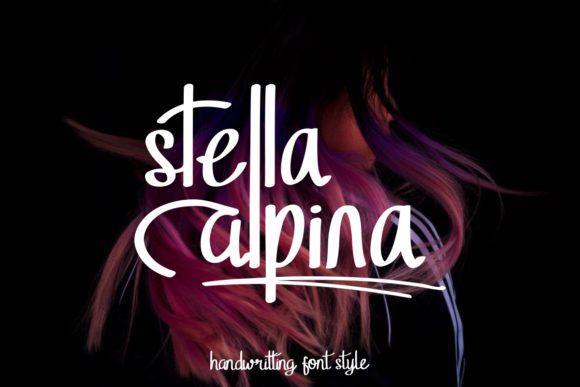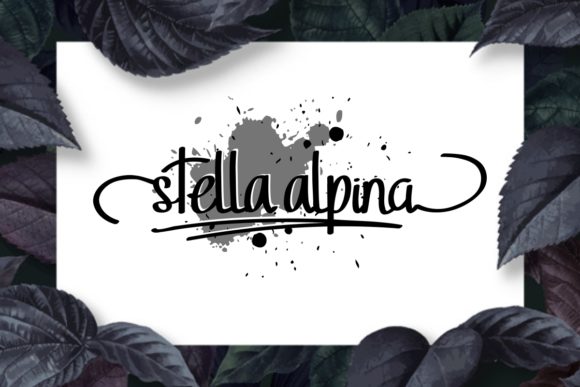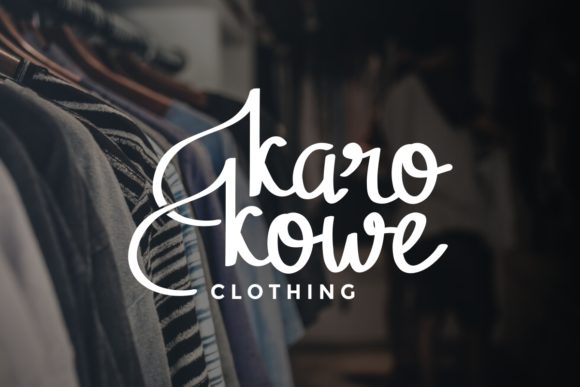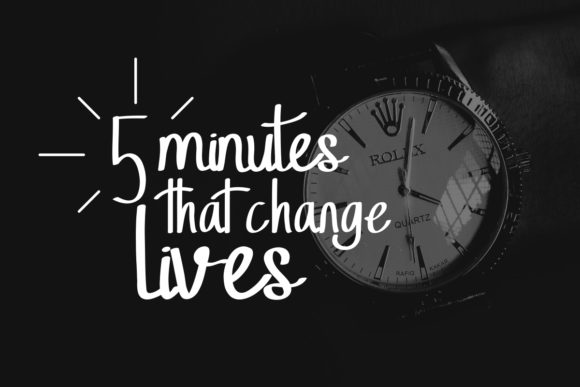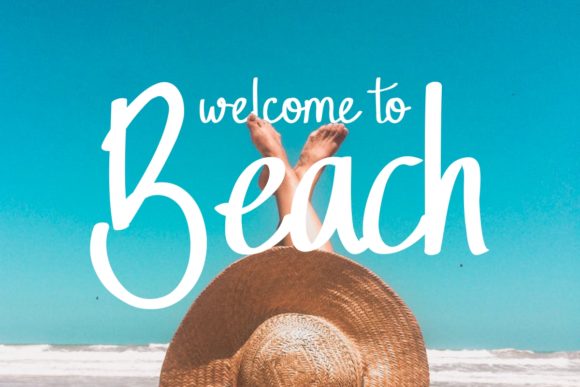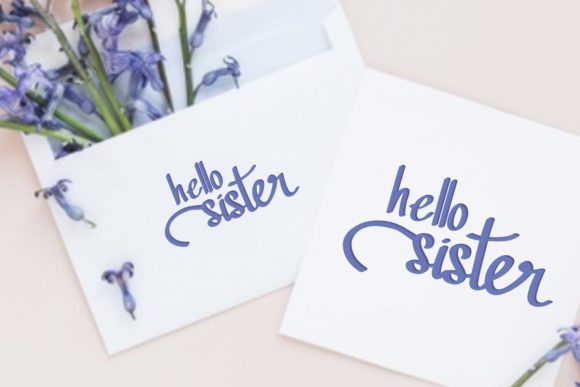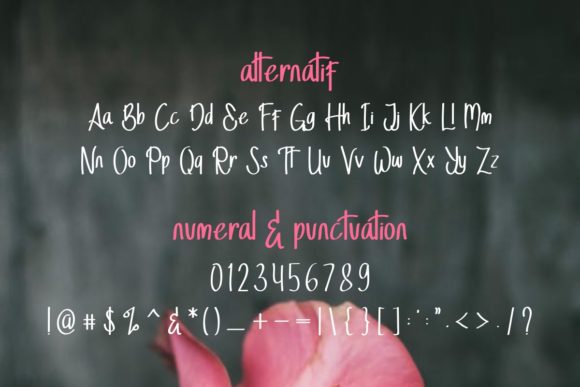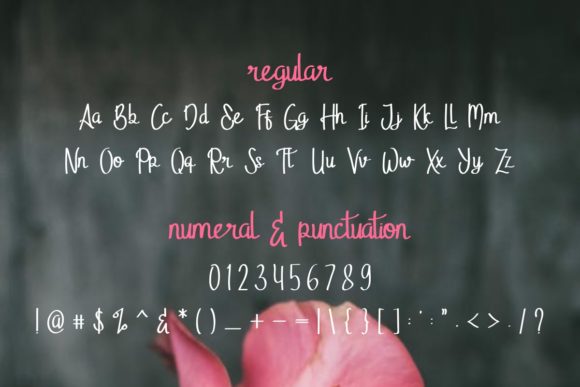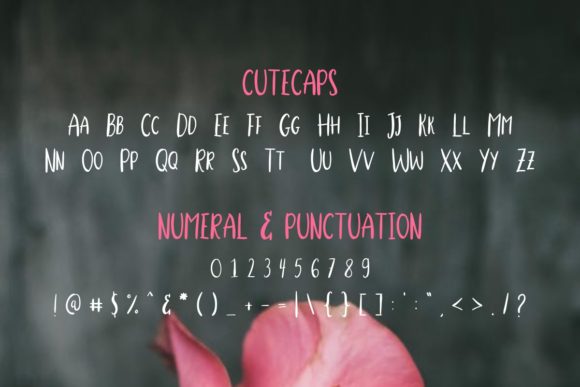
Stella Alpina Font
About Stella Alpina Font
Stella Alpina is a unique and twisted handwritten font with a bold swashes. It will turn any design project into a stand out!